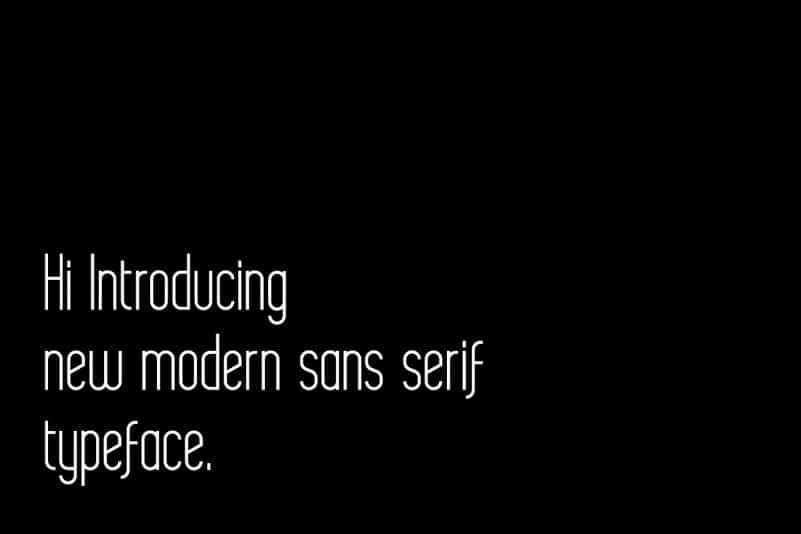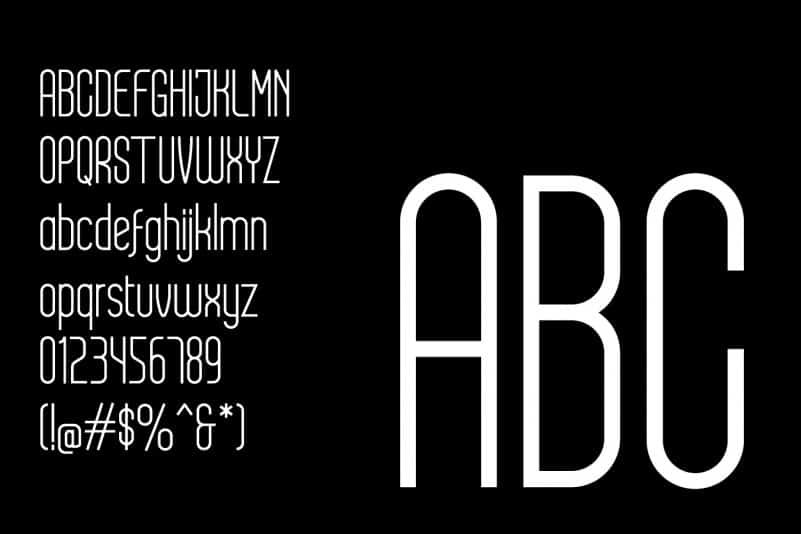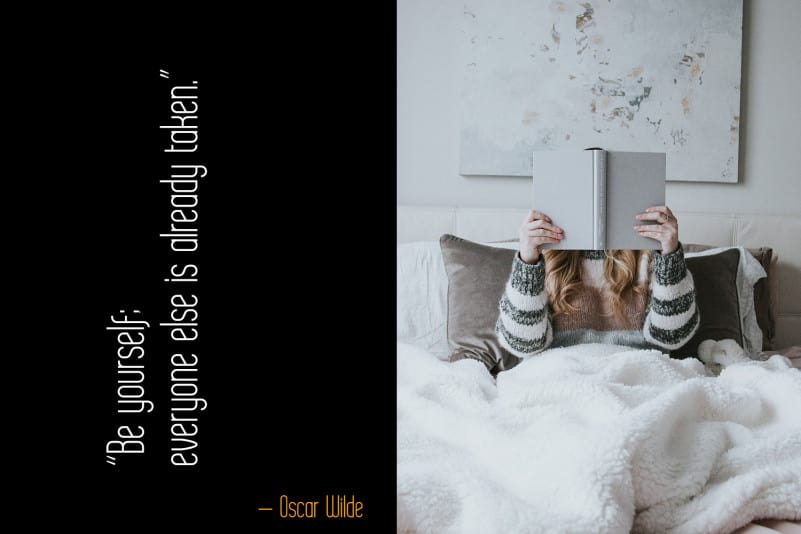
Delvon Sans Serif Font
Delvon Sans Serif Font is a modern sans serif font family. suitable to create any branding, product packaging, invitation, qoutes, t-shirt, label, poster, logo etc.